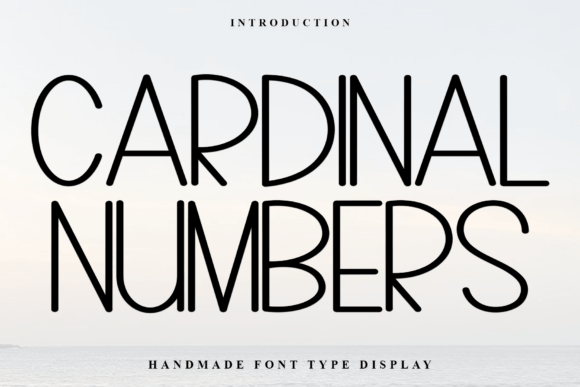
Discover the Timeless Charm of Cardinal Numbers Font
In the realm of typography, few fonts manage to capture the essence of elegance and timelessness. Cardinal Numbers Font is one such gem that has been making waves in the design community. This lovely and timeless handwritten font has been gaining popularity among designers and brands looking to create eye-catching logos, branding materials, and quotes. In this article, we’ll dive into the world of Cardinal Numbers Font, exploring its unique features, benefits, and uses.
A Beautifully Crafted Handwritten Font
Cardinal Numbers Font is a stunning example of a handwritten font that exudes warmth and sophistication. Every letter has a unique and beautiful touch, which makes it perfect for designs that require a personal and humanizing feel. The font’s elegant strokes and curves give it a timeless quality that will make your designs stand out from the crowd.
Key Features of Cardinal Numbers Font
- Unique and Beautiful Touch: Each letter in Cardinal Numbers Font has been carefully crafted to have a distinct character, making it perfect for creating eye-catching designs.
- PUA Encoded: The font is PUA (Private Use Area) encoded, which means you can access all the amazing glyphs and ligatures with ease.
- Handwritten Style: Cardinal Numbers Font boasts a lovely handwritten style that adds a touch of warmth and personality to your designs.
- Timeless Elegance: The font’s classic design ensures that your designs will remain stylish and relevant for years to come.
Perfect for Logos, Branding, and Quotes
Cardinal Numbers Font is an excellent choice for creating logos, branding materials, and quotes that require a personal touch. The font’s unique and beautiful letters will help your brand stand out and make a lasting impression on your audience. Whether you’re designing a logo, business card, or social media graphic, Cardinal Numbers Font is the perfect choice.
Design Tips for Using Cardinal Numbers Font
- Pair with Bold Colors: Combine Cardinal Numbers Font with bold colors to create eye-catching designs that grab attention.
- Experiment with Ligatures: Take advantage of the font’s PUA encoding to access ligatures and create unique and interesting text effects.
- Use for Headings and Titles: Cardinal Numbers Font is perfect for headings and titles, adding a touch of elegance and sophistication to your designs.
The Benefits of Using Cardinal Numbers Font
- Unique Designs: Cardinal Numbers Font helps you create unique and eye-catching designs that stand out from the crowd.
- Time-Saving: The font’s PUA encoding saves you time and effort, allowing you to access glyphs and ligatures quickly and easily.
- Versatility: Cardinal Numbers Font is perfect for a wide range of design projects, from logos and branding to quotes and social media graphics.
- Elegance and Sophistication: The font’s timeless design adds a touch of elegance and sophistication to your designs, making them perfect for high-end brands and luxury products.
In conclusion, Cardinal Numbers Font is a beautifully crafted handwritten font that offers a unique and timeless design. With its PUA encoding, elegant strokes, and curves, this font is perfect for creating eye-catching logos, branding materials, and quotes. Whether you’re a designer, brand, or business owner, Cardinal Numbers Font is an excellent choice for adding a touch of elegance and sophistication to your designs.